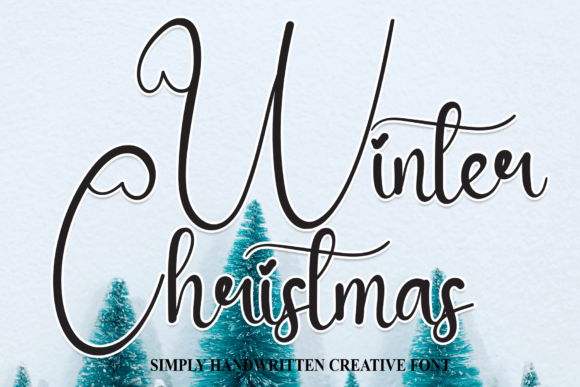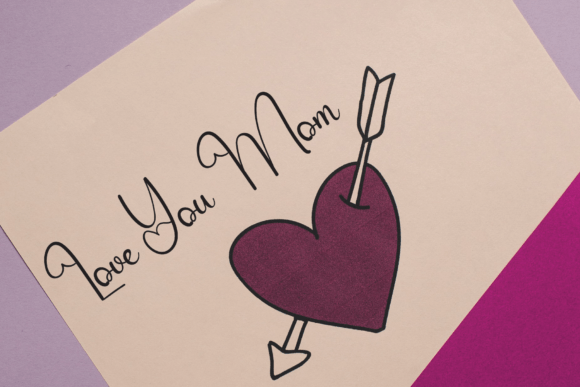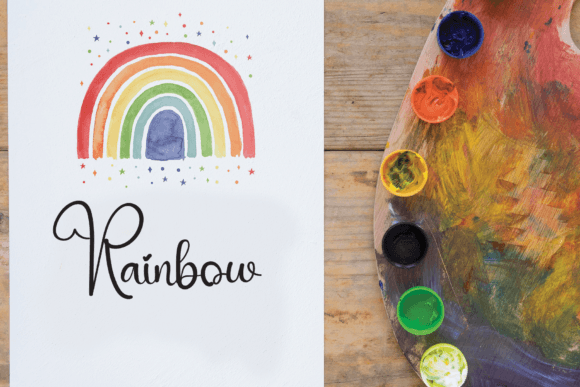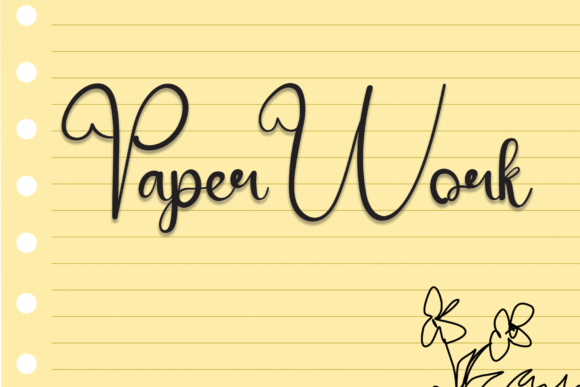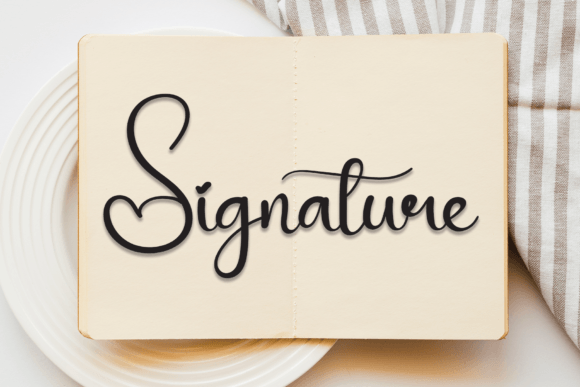
Winter Christmas Font
About Winter Christmas Font
Winter Christmas font is a simple, friendly handwritten typeface designed to bring warmth and charm to your creative projects. This font’s approachable style makes it perfect for a variety of uses, from crafts and digital design to presentations and greeting cards. Its clean and inviting look will help you create beautiful designs that feel personal and heartfelt.
Versatile Uses of Winter Christmas Font
Winter Christmasfont fits perfectly in many creative contexts, such as:
• Handmade crafts that need a personal touch
• Digital designs for social media, websites, or ads
• Presentations requiring a friendly and readable font
• Greeting cards that convey warmth and cheer
The font’s balanced and uncomplicated design ensures it complements your work without overwhelming it, making your messages clear and engaging.